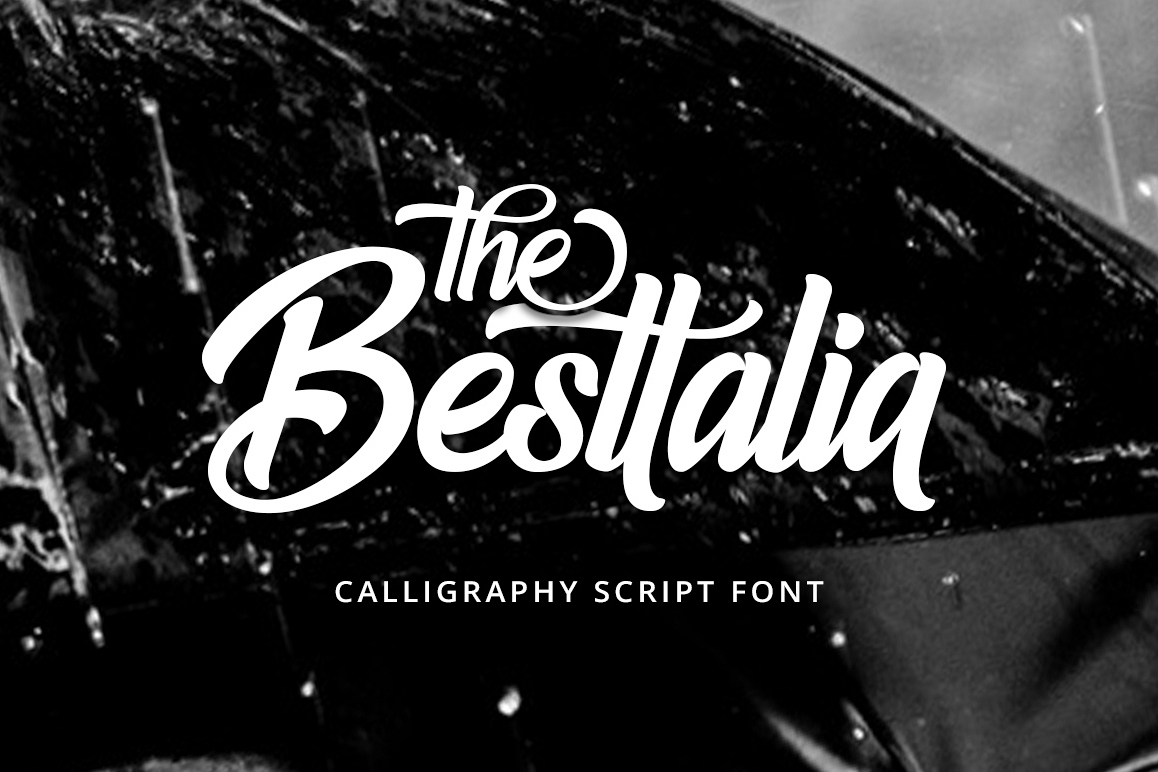
A handrawn script typeface with a great rhythm and good style perfect for logotype, apparel design, letterhead, and etc.Besttalia is available in two version on OTF & TTF.
Besttalia also have so many alternative style on ligature, discreationary ligature and stylistic style to allow you make custom design like a lettering or handmade typography in an instant.